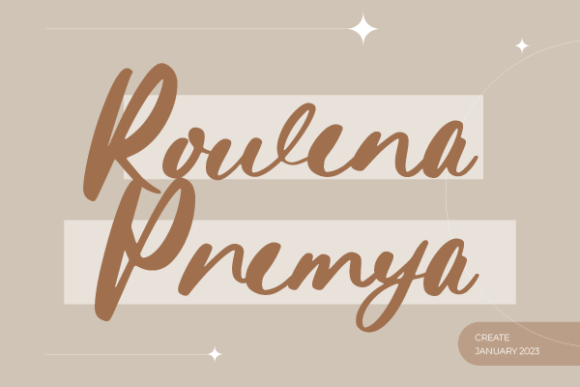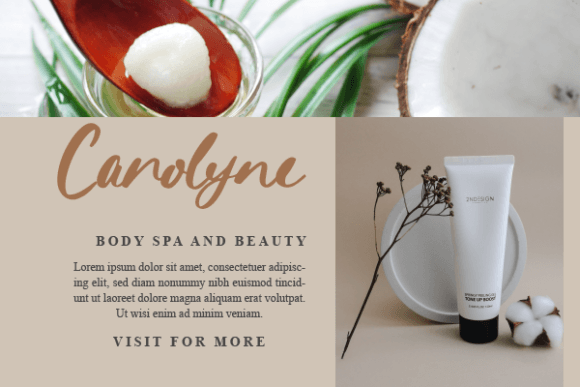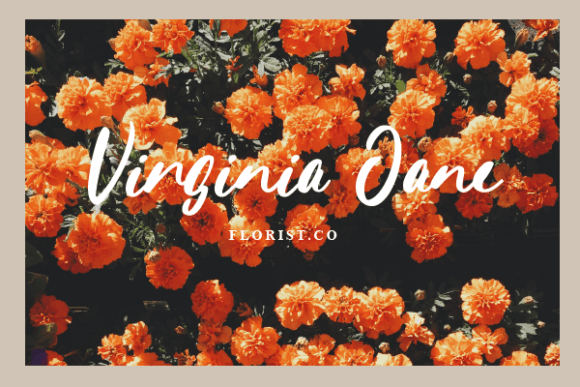
About Rowena Premya
Rowena Premya is an exquisite handwritten font, masterfully designed to become a true favorite. It maintains its classy calligraphic influences while feeling contemporary and fresh. Fall in love with it and bring your projects to the highest levels!